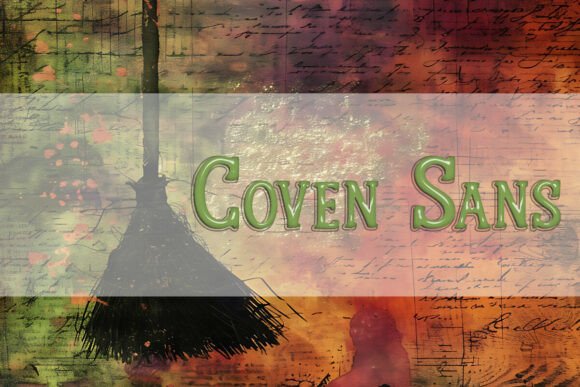
Coven Sans Font: A Modern Mystical Typeface for Branding & Witchy Aesthetics
Are you a designer or crafter looking for a font that combines modern sophistication with a touch of mysticism? Look no further than Coven Sans, a geometric sans-serif font that brings a fresh perspective to the world of witchy aesthetics. In this article, we’ll dive into the features and benefits of Coven Sans, and explore how it can elevate your branding and design projects.
A Modern Take on Mystical Design
Coven Sans is a font that effortlessly blends clean, modern lines with a hint of mysticism. Designed by “Designs by Forte”, this font is perfect for those who want to add a touch of magic to their designs without sacrificing legibility or sophistication. Unlike many witchy fonts that can be overly ornate, Coven Sans strikes the perfect balance between minimalist aesthetics and mystical charm.
Clean, Legible, and Effortlessly Cool
So, what makes Coven Sans stand out from the crowd? For starters, its sharp apexes and open counters give it a contemporary feel that’s both modern and ancient at the same time. This font is designed to be the “workhorse” of your font library, perfect for a wide range of design projects, from branding and advertising to packaging and digital media.
Key Features of Coven Sans
- Geometric sans-serif design: A clean and modern take on traditional sans-serif fonts, perfect for designs that require a touch of sophistication.
- Sharp apexes and open counters: Give Coven Sans a unique feel that’s both contemporary and ancient at the same time.
- Legible and effortlessly cool: Perfect for designs that require a touch of mysticism without sacrificing readability.
- Versatile and multi-purpose: Use Coven Sans for a wide range of design projects, from branding and advertising to packaging and digital media.
Coven Sans is a font that’s specifically designed with designers and crafters in mind. Whether you’re creating branding materials, packaging, or digital media, this font is perfect for adding a touch of mysticism and sophistication to your designs. With its clean lines, legible lettering, and effortlessly cool vibe, Coven Sans is sure to become a staple in your font library.
Using Coven Sans for Branding and Design
So, how can you use Coven Sans to elevate your branding and design projects? Here are a few ideas to get you started:
- Branding and logos: Use Coven Sans to create a modern and sophisticated brand identity that stands out from the crowd.
- Packaging design: Add a touch of mysticism to your packaging designs with Coven Sans, perfect for products that require a unique and eye-catching label.
- Digital media: Use Coven Sans to create engaging and effective digital media, from social media graphics to website headers.
In conclusion, Coven Sans is a modern mystical typeface that’s perfect for designers and crafters looking to add a touch of magic to their designs. With its clean lines, legible lettering, and effortlessly cool vibe, this font is sure to become a staple in your font library. Whether you’re creating branding materials, packaging, or digital media, Coven Sans is the perfect choice for adding a touch of sophistication and mysticism to your designs.